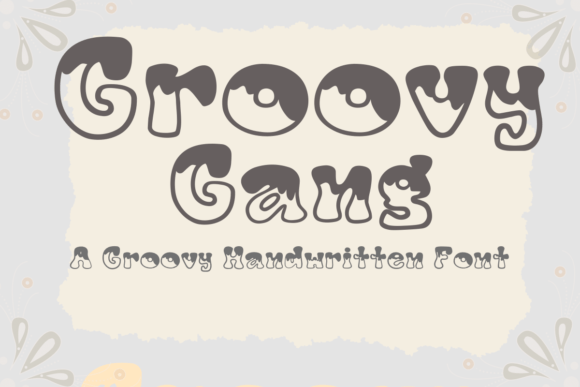
Say hello to Groovy Gang Font, the ultimate font for adding a dash of groovy and retro charm to your creative projects. This enchanting font, hailing from the GetjiArts foundry, oozes a distinctive style that will make your designs pop.
Groovy Gang Font exudes a cool, retro vibe, evoking a sense of nostalgia and playfulness. Its smooth, rounded edges and cheerful characters bring an instant smile to your face, making it the perfect choice for creating greeting cards, eye-catching headlines, trendy stickers, and stylish merchandise.
With Groovy Gang Font, you can let your creativity run wild. Craft unique and charming designs that are sure to leave a lasting impression. Its versatility extends from captivating posters to eye-catching social media posts, allowing you to add a touch of whimsy to any project.
Get ready to embark on a groovy adventure with Groovy Gang Font. Let its playful spirit ignite your imagination and create designs that exude personality and charm. Whether it's a Christmas card, a birthday invitation, or a trendy t-shirt design, Groovy Gang Font will help you spread joy and leave a memorable mark.
Unlock the groovy potential of Groovy Gang Font today! Immerse yourself in its playful charm and create designs that resonate with your audience. Get ready to be swept off your feet by the cuteness overload this font brings to your creations.